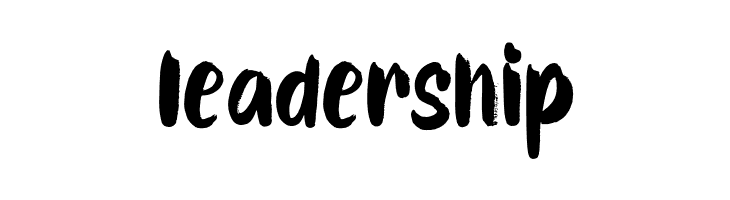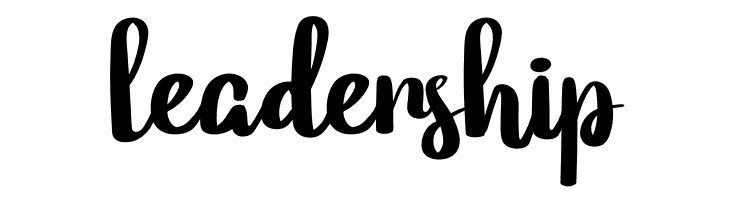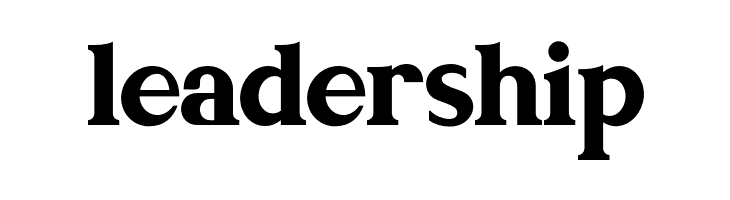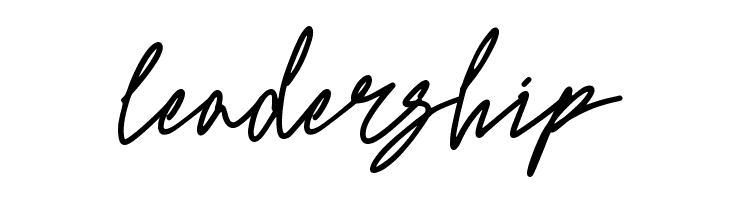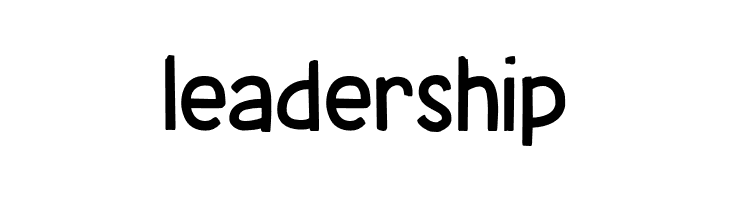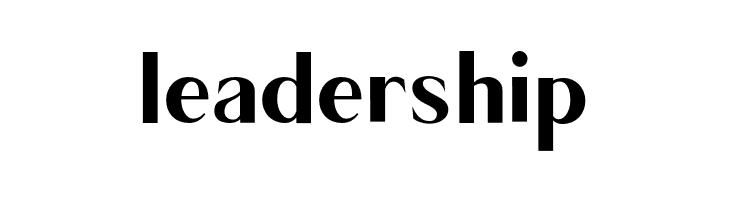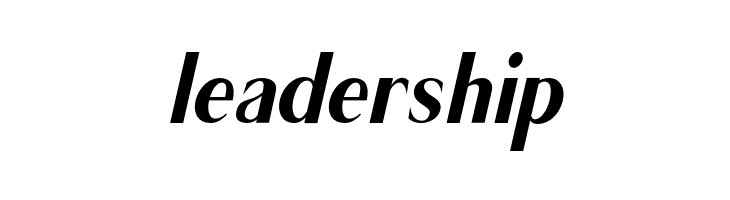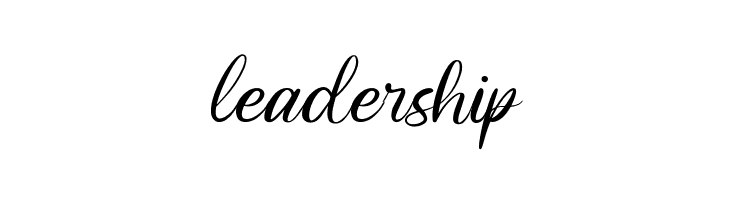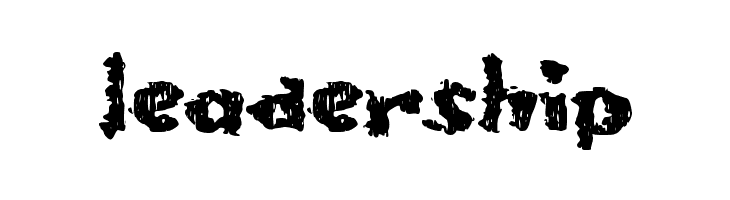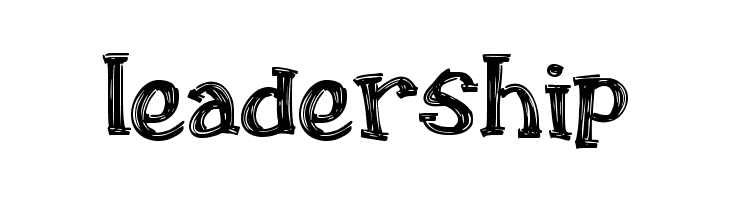
A modern, light sans-serif font with a clean and minimalist design.
A bold, expressive script font with a hand-painted brush style.
A bold, brush-style font with dynamic, handcrafted strokes.
A bold, retro-inspired font with dynamic geometric shapes.
A bold, textured font with a vintage, distressed style.
A playful, casual handwritten font with organic strokes and rounded edges.
A dynamic and elegant script font with flowing, cursive letterforms.
A bold, rounded font with smooth curves and consistent stroke width.
A bold, italicized font with a modern, compact style and medium contrast.
A bold, italic font with rounded characters and a modern, dynamic style.
A bold, rounded font with smooth curves and uniform stroke width, offering a modern and approachable style.
A lively, cursive handwritten font with smooth, connected letters.
A playful handwritten font with a casual and friendly style.
A playful handwritten font with a casual, dynamic style.
A bold, textured font with a hand-drawn, artistic style.
A bold, spiky decorative font with a playful cactus-inspired design.
A playful, bold handwritten font with rounded edges and a casual style.
A modern, playful font with rounded, monoline strokes and a handwritten touch.
A modern, playful font with rounded, monolinear strokes and a slight cursive flair.
An elegant, italic script font with ornate flourishes and a luxurious appearance.
A modern, clean sans-serif font with balanced spacing and consistent stroke width.
A bold, modern sans-serif font with clean lines and balanced spacing.
A bold, italicized typeface with a modern and dynamic style.
A modern italic typeface with clean lines and subtle curvature.
A rustic, woodblock-inspired font with an organic and textured appearance.
A bold, dynamic brush script font with expressive strokes and artistic flair.
A bold, playful font with a hand-drawn, vintage style.
A bold, hand-painted style font with a playful and dynamic appearance.
A bold, italic, and modern font with a sleek and dynamic appearance.
A playful, modern font with geometric and organic elements.
A bold, rounded, hand-drawn font with a warm and inviting style.
A bold, playful font with a bubbly, blocky design.